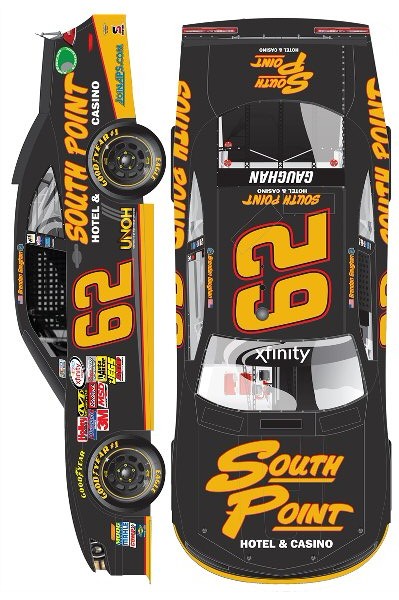
Can anyone help me with this font. I've tried and tried FmF with no luck at all.
these are the best examples I can find.
I can't find something similar (and I performed a search on a database of 700.000 digital fonts).
This could be designed from scratch (i.e. a custom logo with no font involved) or probably a font heavily modified beyond identification.
I'm sorry I can't provide any useful hint about this one... :(
Thank you for the time fivos. This is what I was thinking as well seeing how the two T's are different.